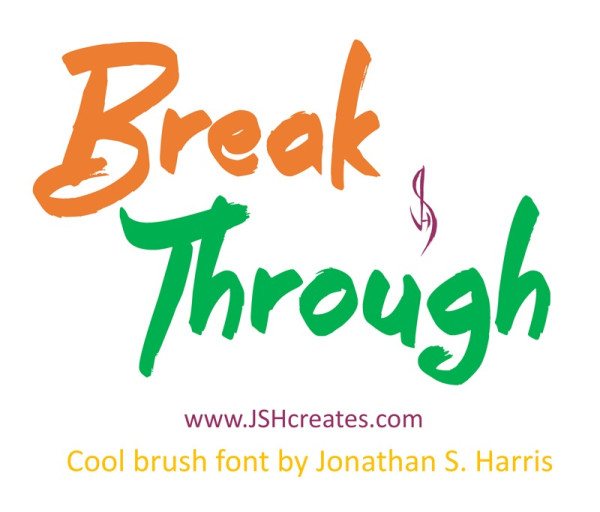
Break Through Font
Break Through Font, is cool hand-written brush font. “Break Through“. Perfect for advertising purposes, including invitation cards, book covers, shirts, posters, logos and much more!